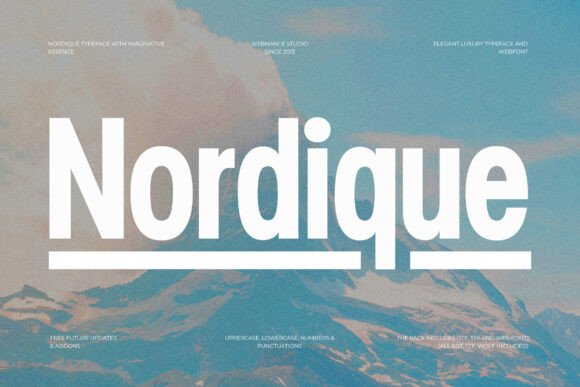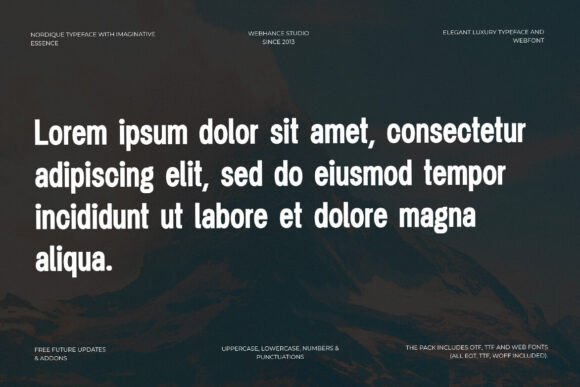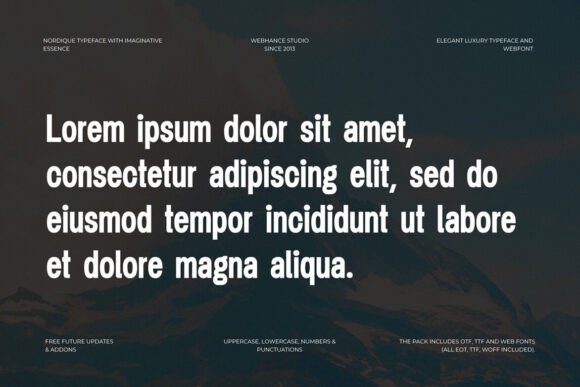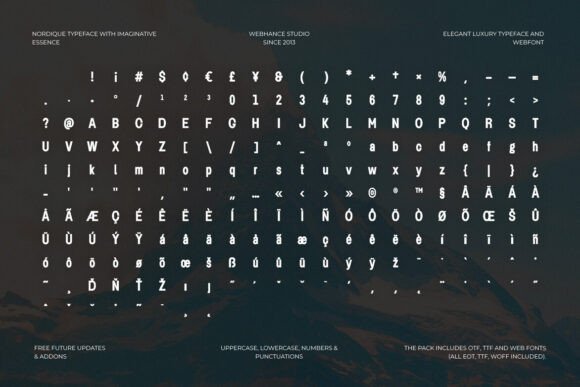
Nordique Font: A Modern Sans Serif for Elegant Logo Design & Branding
About the Nordique Font
The wait is over! The incredible Nordique Font is now available for your design toolkit. Nordique Sans is a modern sans-serif typeface that combines simplicity and elegance. Ideal for contemporary design projects, it offers excellent readability and a polished look.
Nordique Sans excels in headlines, branding applications, and short-form text such as signage or posters. Its clean lines and refined geometry lend themselves well to minimalist designs and projects requiring a sophisticated aesthetic. Avoid using it for extended body text or UI elements; its elegance might compromise readability in lengthy paragraphs or small sizes.
Its inherent personality is modern and elegant, yet approachable. Therefore, it pairs well with warmer, more organic typefaces like a classic serif such as Garamond for a balanced contrast or a script like Allura for a touch of handwritten elegance. For a more contemporary pairing, consider a geometric sans-serif like Futura.
The overall feel is sophisticated and contemporary, making it suitable for brands aiming for a clean, modern image – particularly in technology, fashion, or luxury goods.